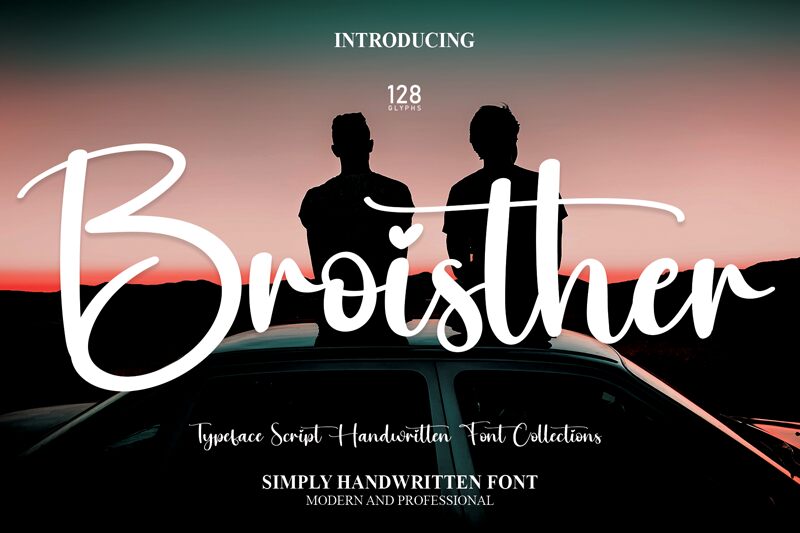
Broisther
Broisther, designed by Scratchones, is a stunning semi-light font that exudes the charm of beautiful handwritten script.
Its fluid strokes and delicate curves make it perfect for adding a touch of elegance to invitations, wedding stationery, and greeting cards. The slight weight gives it an airy and graceful appearance, making it suitable for creating eye-catching logos or branding materials for boutique fashion labels and luxury beauty products. Broisther's enchanting style also lends itself well to crafting captivating blog headers or social media graphics that capture attention with their handcrafted allure.